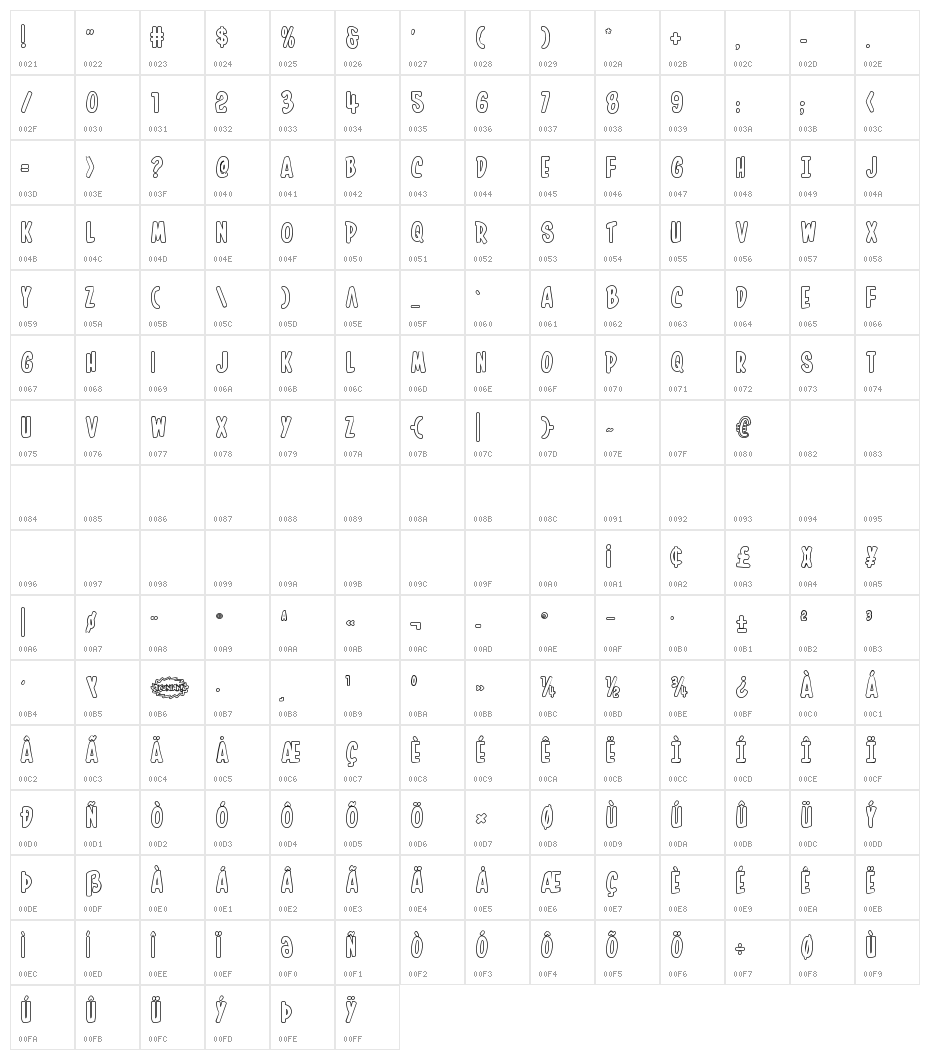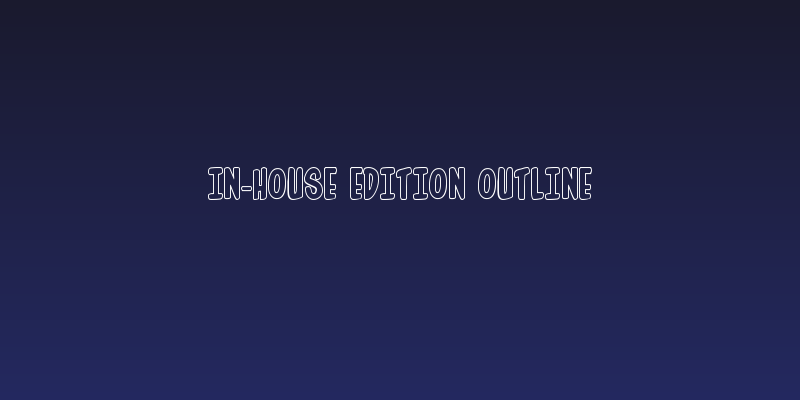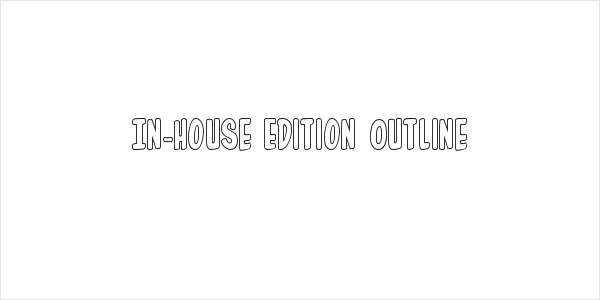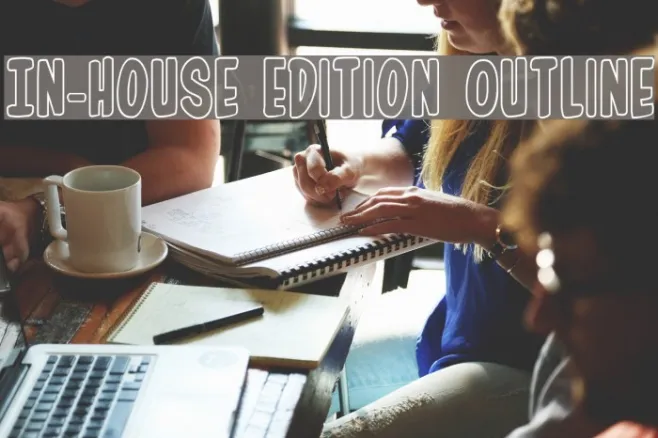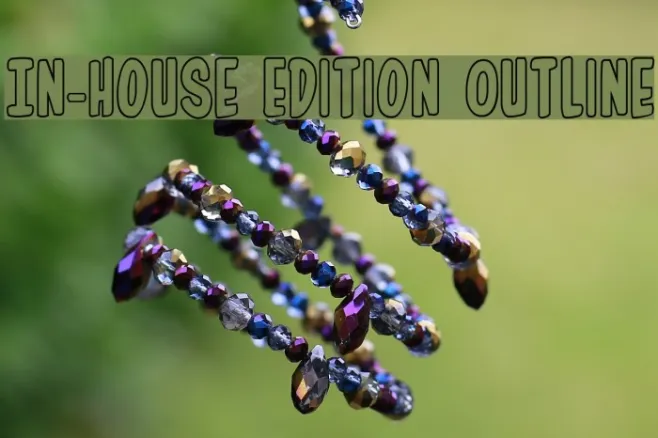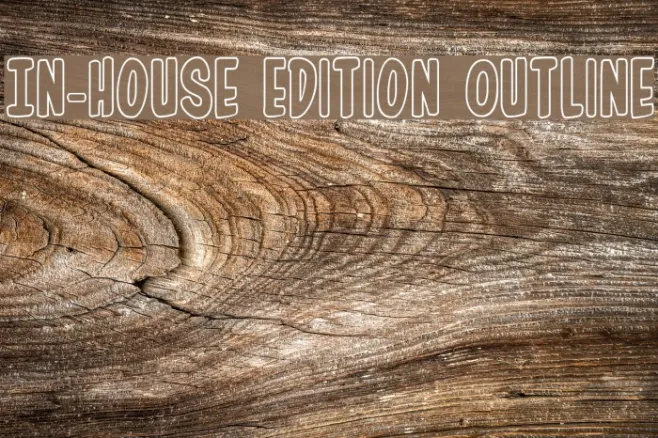
In-House Edition Outline Font
In-House Edition Outline Description
This font features a playful and bold outline style, characterized by its thick, uniform strokes that create a hollow effect. The letters are rounded and slightly condensed, giving them a friendly and approachable appearance. The uppercase and lowercase letters maintain consistent proportions, while the numerals and special characters complement the overall design with similar thickness and style. The font's outline nature makes it ideal for creative and eye-catching designs, where the text needs to stand out without being overly complex.
| Overall Style | Playful, Modern |
| Proposed Projects | Ideal for children's book covers, playful branding, posters, and creative digital graphics. |